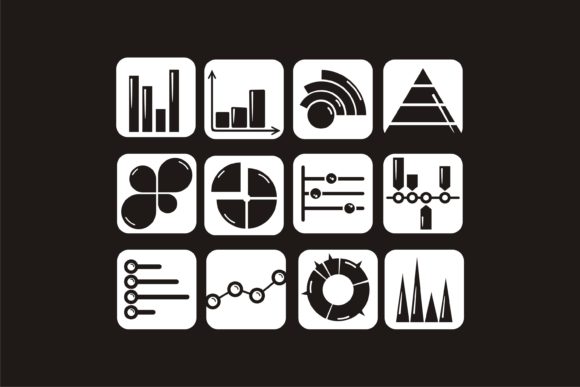
About Mini Charts Font
“Mini Charts” is a fun and useful dingbats font that adds a playful and informative touch to your designs. With its collection of various chart symbols and graphics, this font is perfect for visualizing data, creating infographics, or adding a unique element to your creative projects.
No matter the topic or theme of your design, “Mini Charts” can be an incredible asset to your fonts’ library. It offers a range of chart symbols such as bar graphs, pie charts, line graphs, and more. These symbols can be used to represent data in a visually appealing and concise manner.
The versatility of “Mini Charts” allows you to incorporate it into various projects. If you’re working on a presentation or report that requires data visualization, this font can help you present information in a more engaging and understandable way. By using the chart symbols from “Mini Charts,” you can easily create eye-catching graphics that effectively communicate complex data.
In addition to data visualization, “Mini Charts” can also be used creatively in other design projects. You can incorporate these chart symbols into posters, flyers, social media graphics, or even as decorative elements in your artwork. The unique and playful nature of the symbols adds a fun and informative twist to your designs, making them more visually appealing and memorable.
Whether you’re a designer, marketer, educator, or simply someone who loves to create visually captivating content, “Mini Charts” offers a valuable addition to your fonts’ library. Its collection of chart symbols provides endless possibilities for incorporating data visualization into your designs, allowing you to elevate any creation with an informative and engaging touch.
In summary, “Mini Charts” is a fun and useful dingbats font that adds a playful and informative element to your designs. With its range of chart symbols, it offers a versatile way to visualize data and create visually appealing graphics. Whether you’re working on presentations, infographics, or other creative projects, “Mini Charts” can be a valuable asset in your fonts’ library.